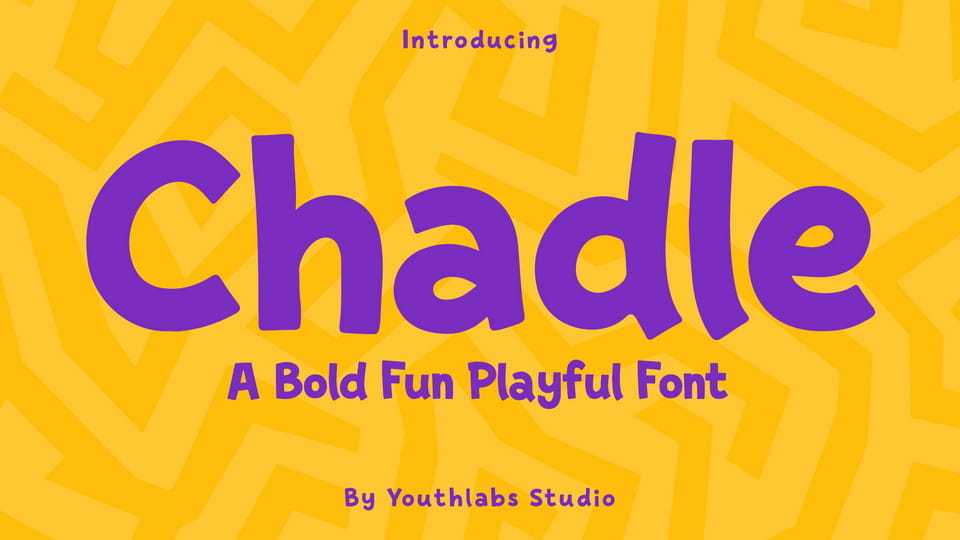
Download Chadle font, a bold, fun, and playful display typeface designed to bring joy and energy to your designs with chunky shapes, rounded curves, and a friendly personality.
Designer: Youthlabs Studio